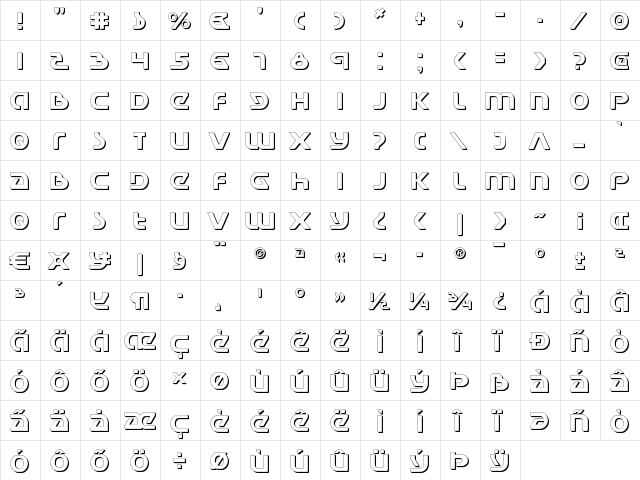
Universal Jack Shadow Shadow
Design Context for Universal Jack Shadow Typeface
Universal Jack Shadow brings ornamental detail and strong personality to headlines and identities, where visual impact matters more than quiet functionality.
Font Pairing: Pair with a clean neutral sans-serif for body copy to let Universal Jack Shadow's character lead without overwhelming the composition.
Pro Tip: Use Universal Jack Shadow exclusively at display sizes — it was designed to be seen, not read at length. Let a neutral companion handle body copy.